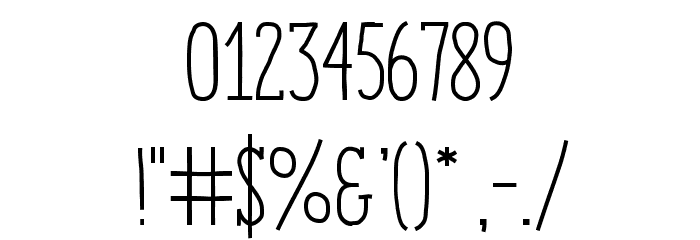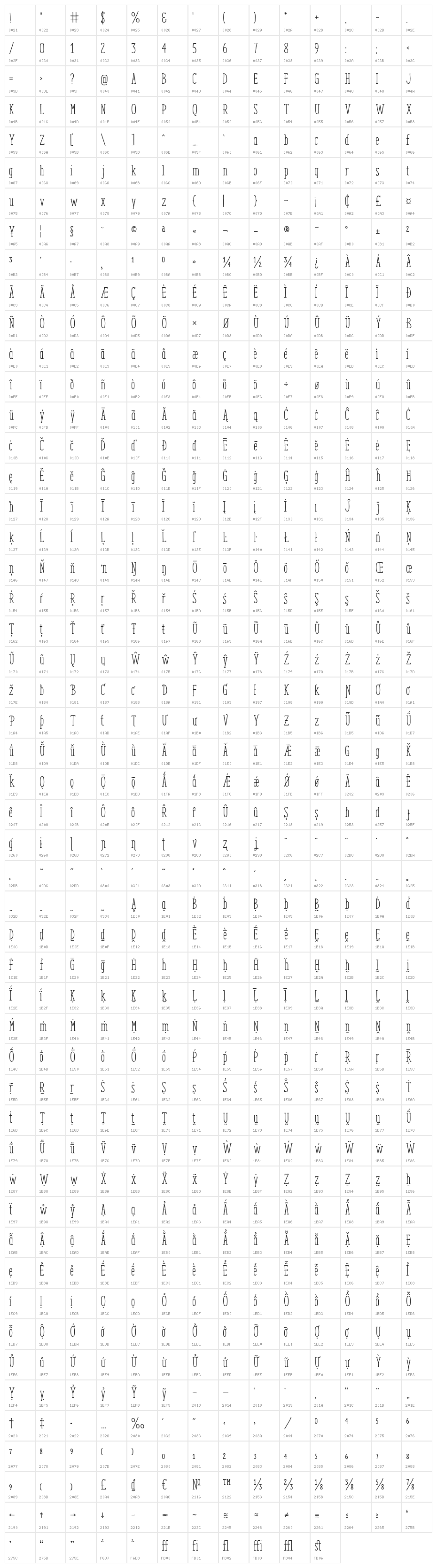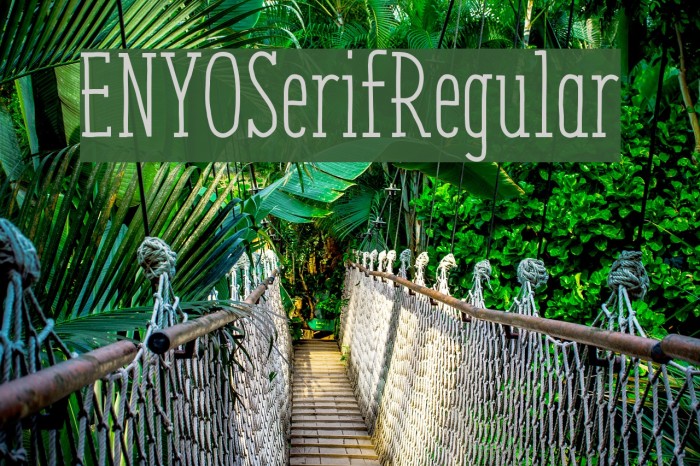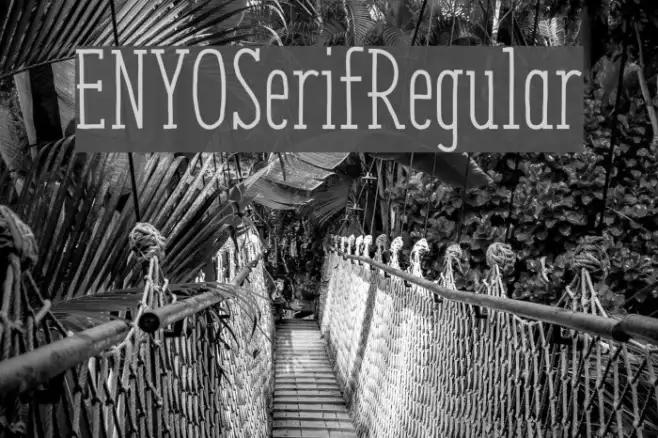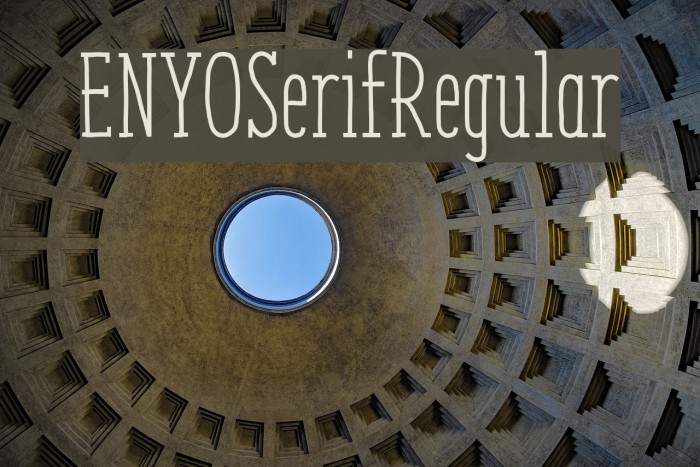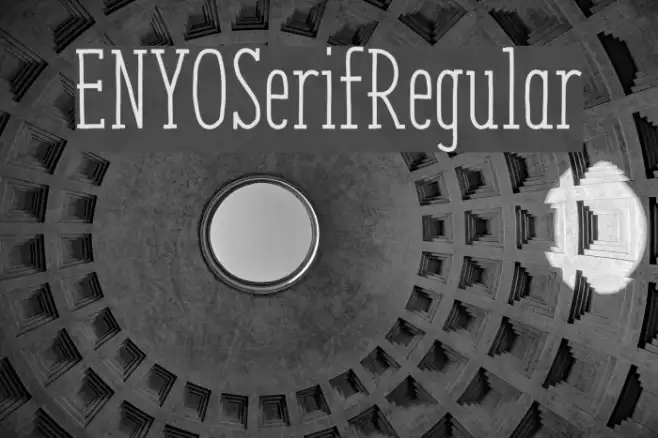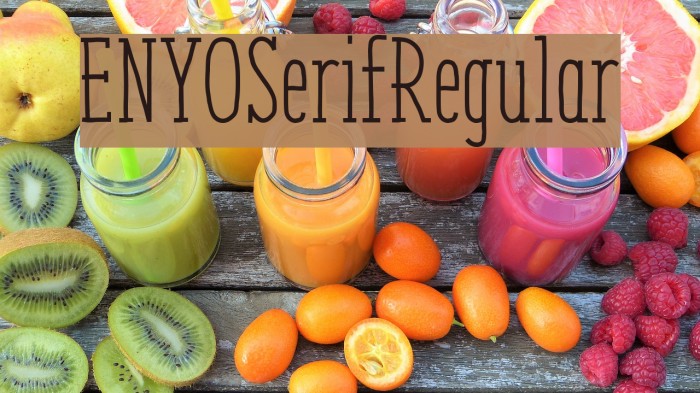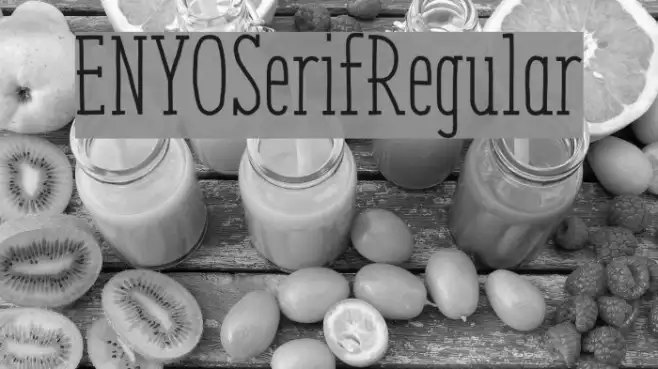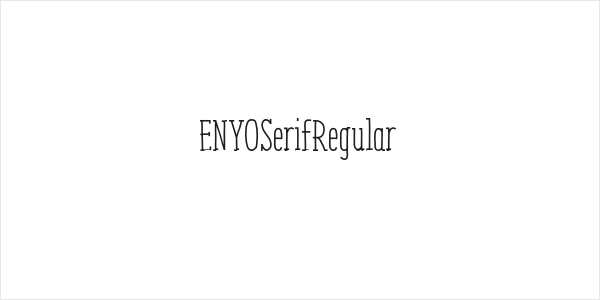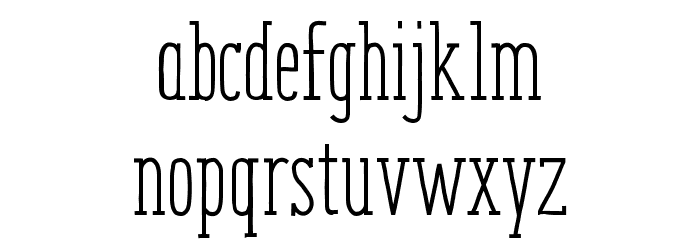
ENYOSerifRegular Font
This font features a classic serif style with a modern twist, characterized by its tall, narrow letterforms and distinct serifs. The uppercase letters are elegantly elongated, giving a sense of sophistication and formality. The lowercase letters maintain a consistent height, providing a balanced and readable appearance. The numerals are clear and straightforward, matching the overall aesthetic of the font. Special characters are well-integrated, maintaining the font's cohesive look. The design is suitable for projects that require a touch of elegance and tradition, while still appearing contemporary.
| Proposed Projects | Ideal for editorial design, book covers, formal invitations, and branding projects that require a classic yet modern touch. |